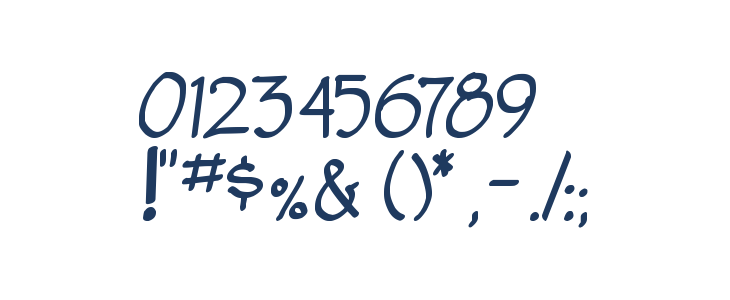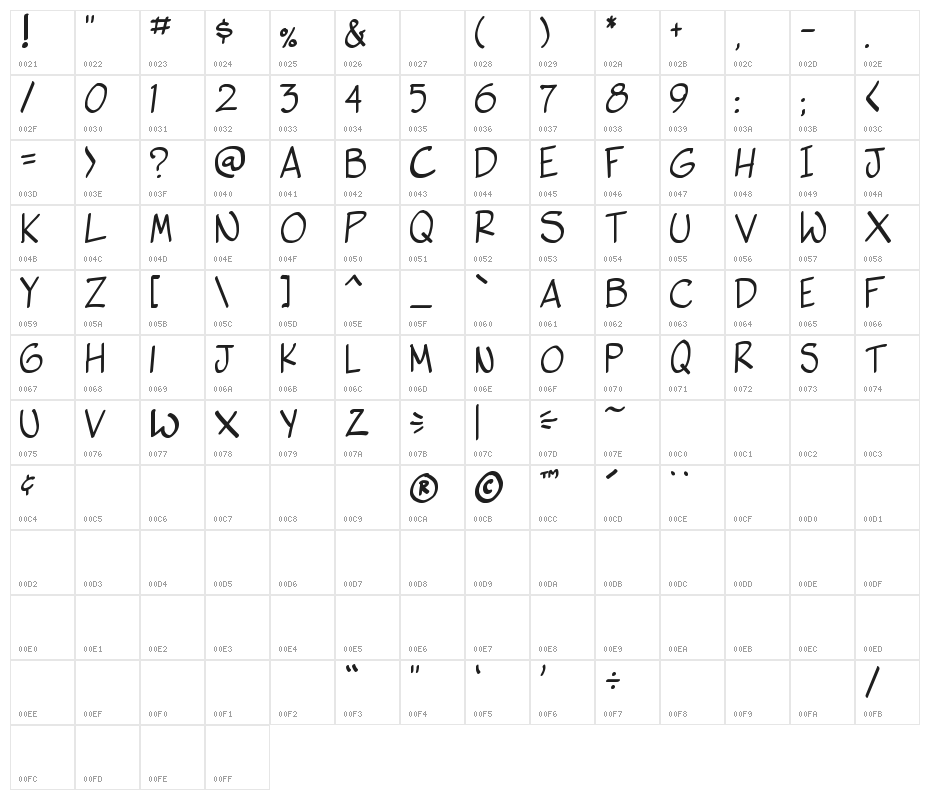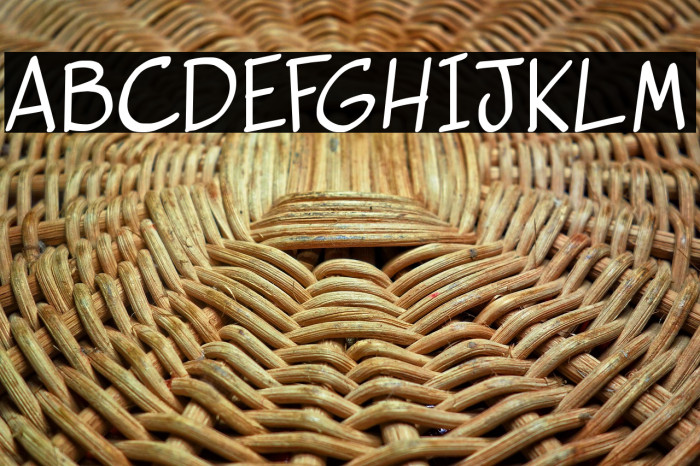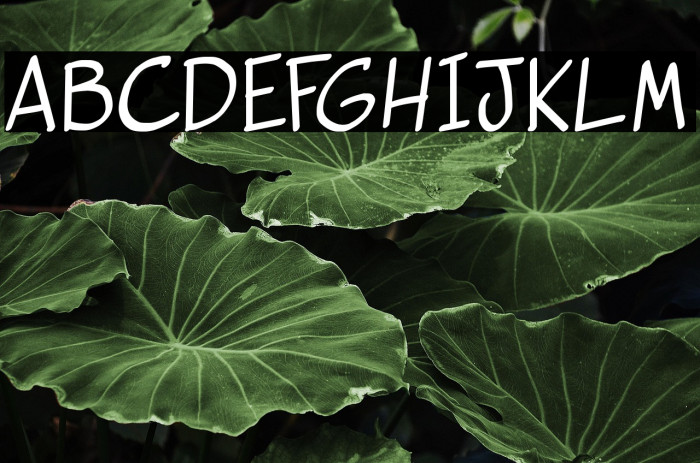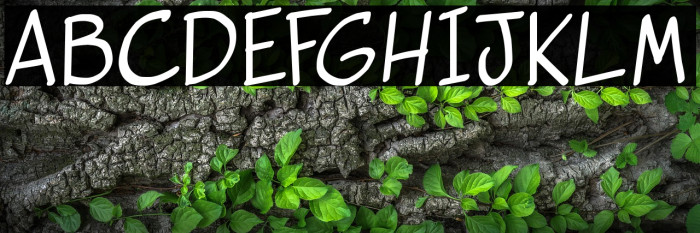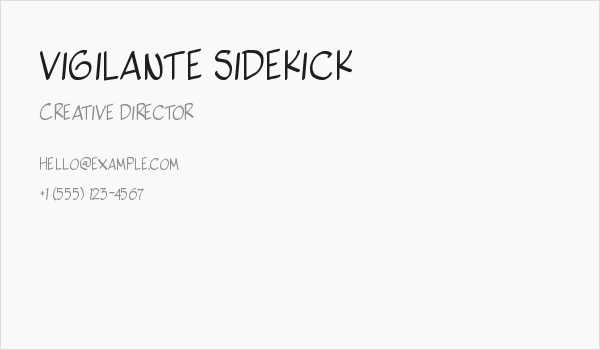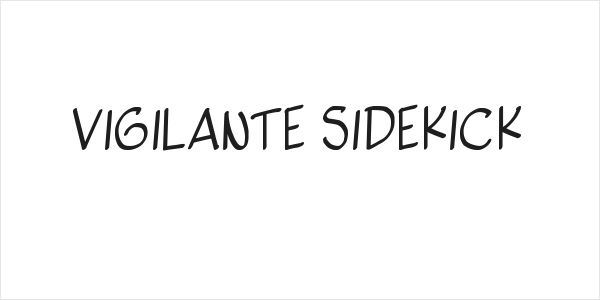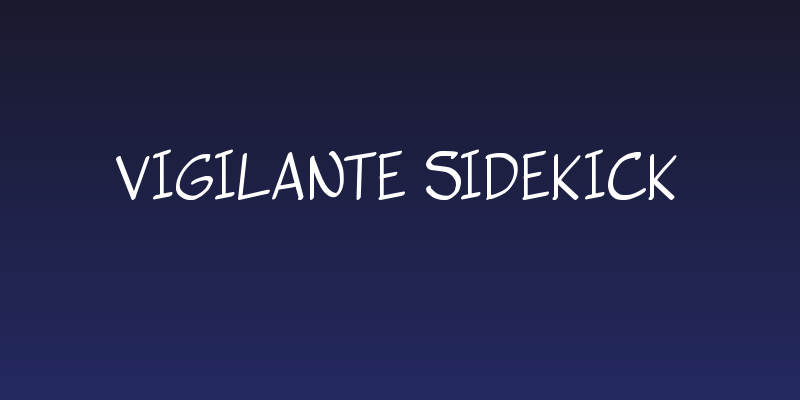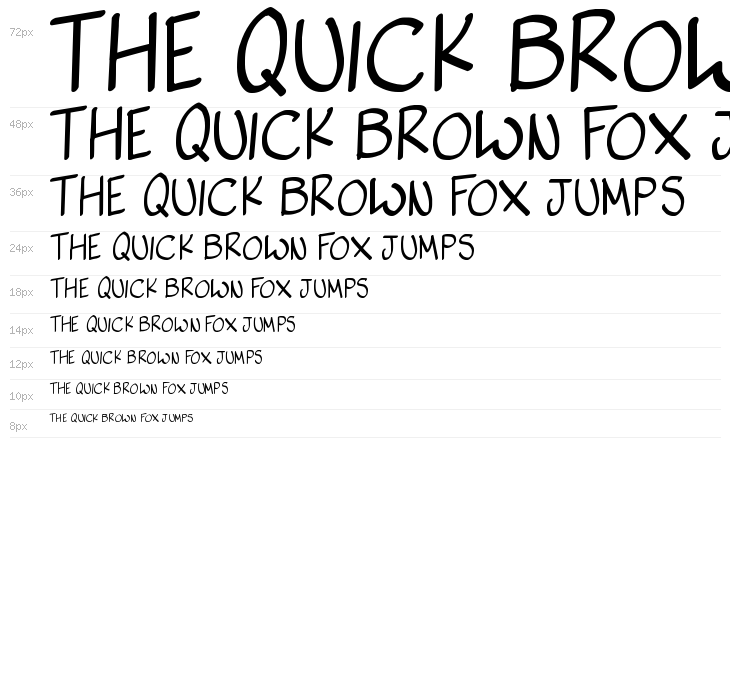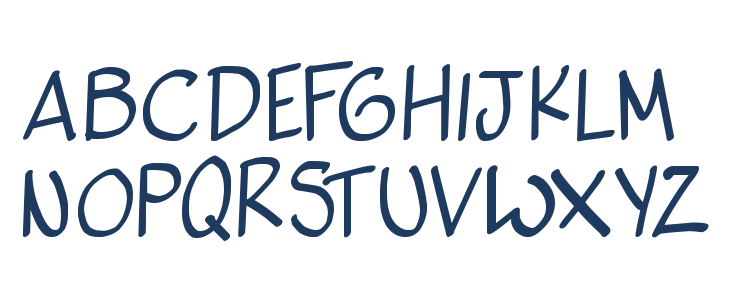
vigilante sidekick Font
vigilante sidekick Description
This font features a playful and casual handwritten style, characterized by its slightly irregular letterforms and dynamic strokes. The uppercase and lowercase letters maintain a consistent flow, with a slight slant that adds to its informal appearance. The numerals and special characters are crafted with the same lively energy, making them blend seamlessly with the alphabet. The overall design is approachable and friendly, making it suitable for projects that require a personal touch. The strokes are moderately thick, providing good readability while maintaining a whimsical charm.
| Use Case | Logos, Headlines, Informal Texts |
| Proposed Projects | Ideal for greeting cards, children's books, casual branding, and social media graphics. |